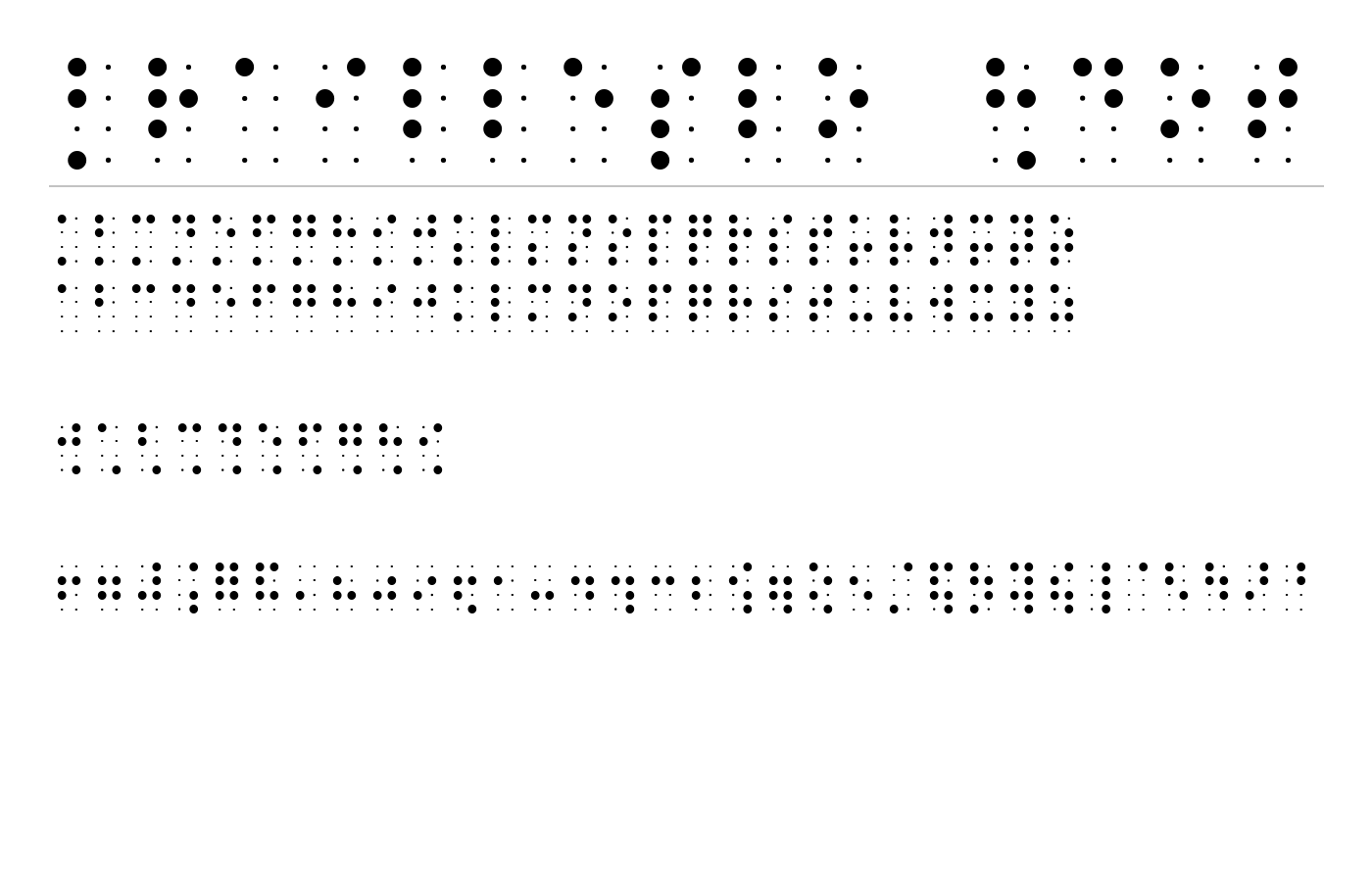
BrailleSlo 8dot is a specialized monospaced font designed to represent the 8-dot Braille system visually. It features evenly spaced, rounded dots arranged in rectangular cells, maintaining clarity and accuracy for tactile reading. This font is ideal for educational materials, accessibility tools, and design projects that require authentic Braille representation.
BrailleSlo 8dot Font
About BrailleSlo 8dot Font
| Font family | BrailleSlo 8dot Font |
| Designer | Polona Jenčič |